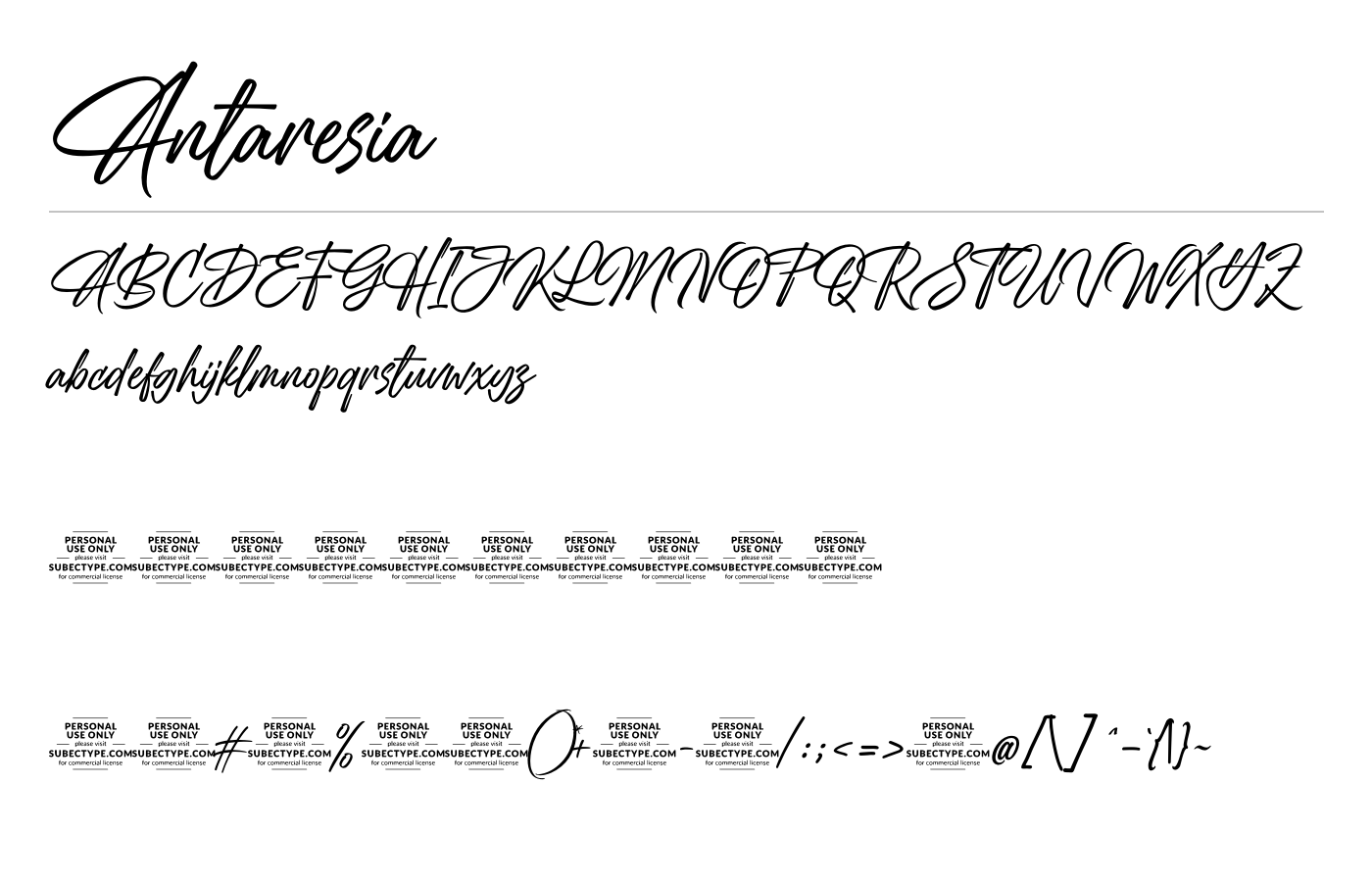
Antaresia is a stylish script font characterized by its elegant, flowing strokes and handwritten charm. It features a light weight with a slightly condensed width and high x-height, giving it a graceful yet readable appearance perfect for branding, invitations, and creative projects that seek a personal, sophisticated touch. This font conveys a modern, artistic personality best suited for logos, fashion, and editorial use where a refined yet approachable look is desired.
Antaresia Font
About Antaresia Font
| Font family | Antaresia Font |
| Designer | Rangga Singgih Subekti |